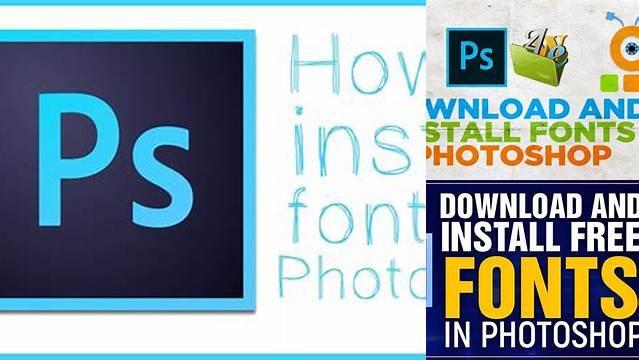
Mastering Fonts In Photoshop: Download, Install, & Use
Hey guys, ever wondered how to really jazz up your designs in Photoshop with some totally unique fonts? You know, moving beyond the standard Arial or Times New Roman to something that truly makes your work pop? Well, you're in the right place! Learning how to download and use fonts in Photoshop is one of those essential skills that can seriously elevate your design game, making everything from social media graphics to website layouts look professionally polished and distinctly you. It might seem a little daunting at first, especially if you're new to the design world, but trust me, it's super straightforward once you get the hang of it. We're going to break down every single step, from finding those awesome fonts online to getting them perfectly integrated into your Photoshop projects. So, grab a coffee, fire up Photoshop, and let's dive into the wonderful world of typography!
Understanding the World of Fonts for Photoshop
Alright, let's kick things off by understanding why downloading and using fonts in Photoshop is such a game-changer for designers, artists, and pretty much anyone creating visual content. Fonts aren't just about making words legible; they are powerful design elements that convey mood, brand personality, and even historical context. Think about it: a sleek, modern sans-serif font communicates something entirely different than an ornate, gothic script, right? The choice of typography can literally make or break a design. In Photoshop, where visual communication is key, having a diverse and well-curated font library gives you an enormous creative advantage. It allows you to tailor your text to perfectly match the aesthetic and message of your visuals, ensuring harmony and impact. Whether you're working on a poster that needs a bold, attention-grabbing headline, a sophisticated invitation requiring an elegant script, or a youthful blog graphic that screams fun, the right font is your secret weapon. Without the ability to easily download and use fonts in Photoshop, you'd be stuck with a very limited palette, making all your designs look eerily similar and, frankly, a bit generic. Embracing custom fonts opens up a universe of creative possibilities, letting you infuse unique character and distinction into every project you touch. So, understanding that fonts are more than just text – they're visual voices – is the first step to becoming a true typography wizard.
Activating Your New Fonts within Adobe Photoshop
Okay, guys, you've done the hard work: you've found amazing fonts, downloaded them, and successfully installed them on your computer, whether it's a Windows PC or a Mac. Now comes the moment of truth: activating your new fonts within Adobe Photoshop so you can actually start using them in your creative projects! This step is usually pretty automatic, but sometimes you might need to give Photoshop a little nudge. The most important thing to remember is this: Photoshop needs to be aware of the new fonts you've installed on your system. If Photoshop was open while you were installing the fonts, it won't automatically refresh its font list immediately. In this scenario, the simplest and most effective solution is to restart Adobe Photoshop. Close the application completely and then open it back up. This forces Photoshop to re-scan your system's font directories and load all the newly added typefaces. Once Photoshop is relaunched, open up any document (or create a new one), select the Text Tool (T on your keyboard), and then look at the font dropdown menu in the Options bar at the top of the screen or in the Character panel (Window > Character). Scroll through the list, or even better, start typing the name of your newly installed font. You should see it appear in the list! If for some reason you don't see it, double-check that you installed the font correctly and that Photoshop was indeed restarted. Sometimes, fonts with very unique names might be slightly harder to spot, so try typing the exact name if you know it. Once you select it, any new text you type will appear in your fresh, custom font, ready for you to manipulate and integrate into your design. This simple activation step connects your system's font library directly to Photoshop, unlocking endless typographic possibilities for your projects!
Troubleshooting Common Font Installation Issues
Even for seasoned designers, running into a snag when installing and activating fonts for Photoshop can happen. Don't sweat it, guys! It's a common hurdle, and most font installation issues have straightforward fixes. The most frequent problem is when your newly installed font just doesn't show up in Photoshop's font list. If this happens, first and foremost, did you restart Photoshop? As we just discussed, Photoshop needs to be relaunched to recognize system-wide font changes. This solves about 90% of all